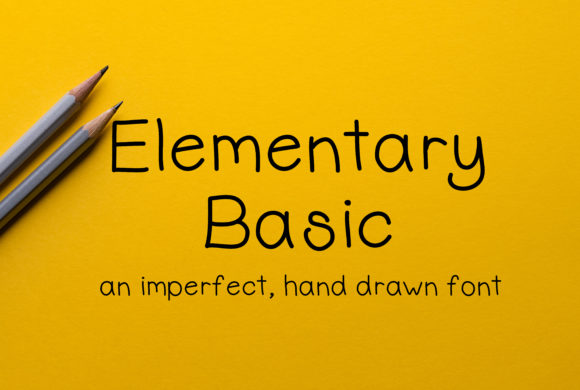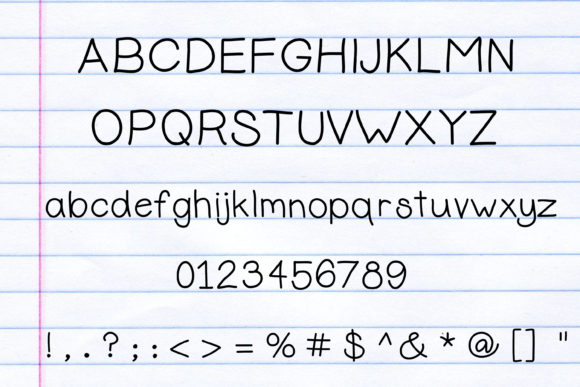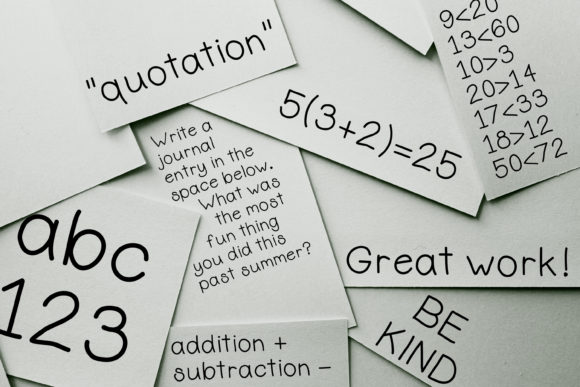
Elementary Basic Font
About Elementary Basic Font
Elementary Basic is a fun and cute handwritten style font that will effortlessly add an authentic touch to your next design. It will look particularly great in any school or childrens themed projects!